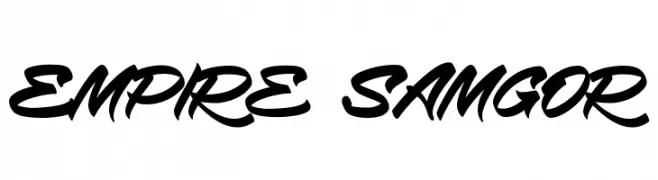
( Fonts by Sinister Visions - Chad Savage - www.sinisterfonts.com )
A bold, jagged font with a horror and gothic theme.
( Fonts by Muhammad Yafinuha )
A bold, playful font with thick, rounded characters and a whimsical style.
( Fonts by www.dcoxy.com )
A bold, distressed font with a grunge-like, hand-drawn appearance.
A bold, dripping font with a spooky, horror-themed style.
( Fonts by Darrell Flood )
A bold, playful font with a quirky, cartoonish style.
A distressed, grunge-style font with a textured, aged appearance.
A distressed, grungy font with irregular edges and a textured appearance.
A distressed, grunge-style font with a rough, textured appearance.
A distressed, grungy font with a horror-themed, hand-drawn appearance.
A playful, hand-drawn font with whimsical, irregular strokes and exaggerated serifs.
A distressed, horror-themed font with jagged, uneven characters.
( Font by Jonathan Harris - www.tattoowoo.com )
A bold, grunge-style font with dripping effects, ideal for horror-themed projects.
( Fonts by Asep Rendi )
A bold, playful font with exaggerated curves and a cartoonish style.
( Fonts by Mr Fisk - Mike Larsson - fontorama.net )
A distressed, grunge-style font with a bold, rugged appearance.
A bold, brush-style font with a dynamic and expressive appearance.
A bold, hand-drawn style font with a lively and energetic appearance.
A bold, playful font with jagged edges and a spooky, eerie style.
( Xerographer Fonts - Max Infeld - xerographer.blogspot.com )
A bold, hand-painted style font with dynamic, textured strokes.
A bold, block-like font with strong geometric shapes and an impactful presence.
( Fonts by Si Panji )
A bold, graffiti-style font with a dripping paint effect, perfect for urban-themed designs.
A bold, jagged font with a distressed, scratch-like appearance.
A rugged, distressed font with a horror-themed aesthetic.
A spooky, stitched-style font ideal for horror themes.
( Fonts by Xerographer Fonts )